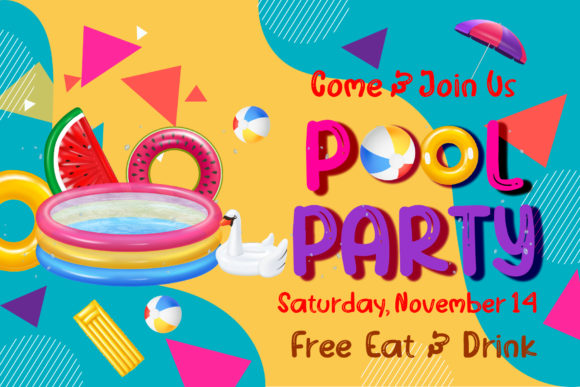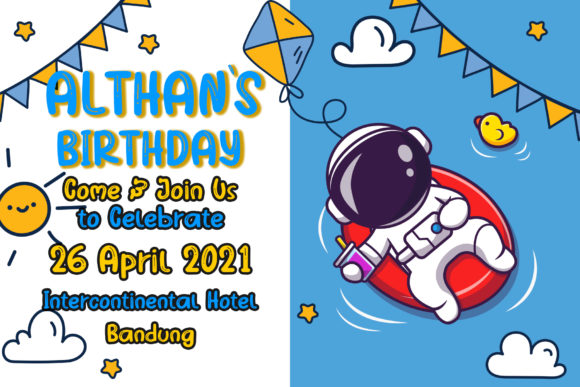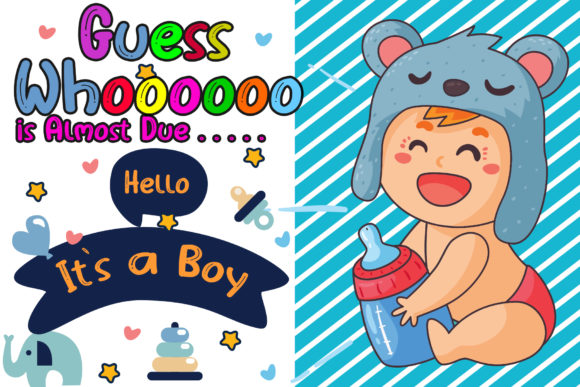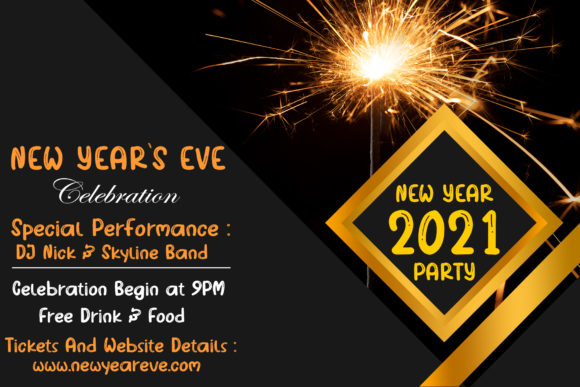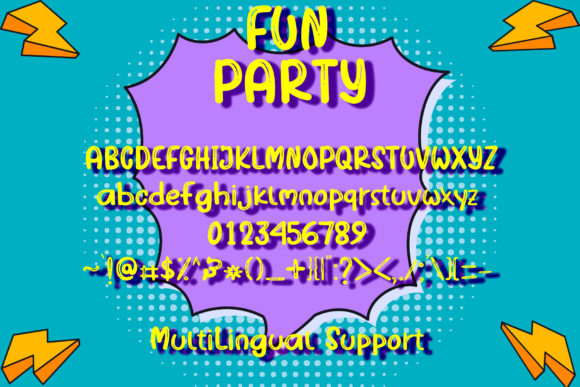
The Ultimate Party Starter: Fun Party Font
I’ll never forget the time I was working on a birthday party invitation project, and I just couldn’t find the right font to match the playful vibe I was going for. The client wanted something that would make the invitation feel like a celebration in itself, but every font I tried seemed either too boring or too over-the-top. That’s when I stumbled upon the Fun Party font, and let me tell you, it was like the party started right there on my screen! 🎉
A Quirky and Fun Font for Every Occasion
Fun Party is a quirky and fun font that’s designed to bring a smile to your face. Its whimsical look is perfect for a wide range of projects, from greeting cards and logos to stationery and more! Whether you’re a designer, crafter, or creative hobbyist, this font is sure to add a touch of personality to your work.
• ✨ Unique and quirky design that’s sure to stand out
• ✅ Highly legible, even at small sizes
• 🎉 Perfect for projects that need a playful touch
• 💻 Works beautifully in both digital and print formats
While Fun Party is an amazing font, there are a few things to keep in mind:
• 🤔 Some characters may not work well in very small sizes (less than 10pt)
• ⚠️ Limited availability of certain diacritical marks
One of the best things about Fun Party font is its OpenType features and glyphs. With a range of stylistic alternates, you can customize your text to fit your project’s tone and style. For example, you can use the font’s built-in swashes to add a touch of elegance to your headings, or use the glyphs to create fun and playful icons.
The Designer Inspiration Behind Fun Party
According to the font’s creator, Fun Party was inspired by the joy and excitement of parties and celebrations. The designer wanted to create a font that would capture the playful, carefree spirit of a fun night out with friends. And I think they definitely succeeded! 🎉
Q: Is Fun Party font suitable for body text?
While Fun Party font is highly legible, it’s best suited for headlines, titles, and short paragraphs. For longer body text, you may want to choose a more traditional font.